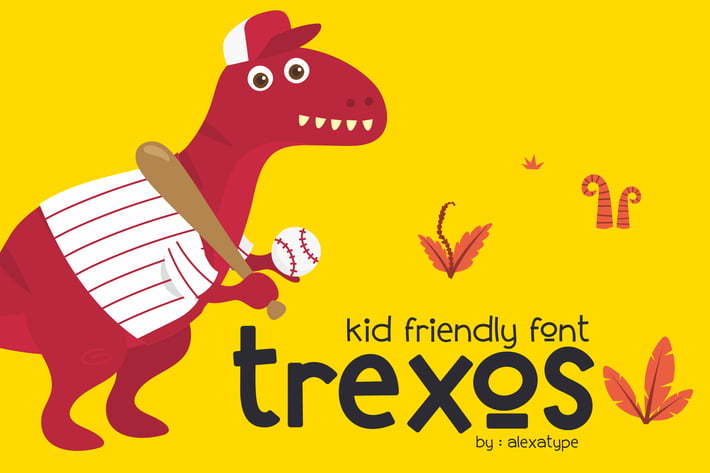
Trexos Font
Trexos is a friendly, rounded sans serif font inspired by the cheerful energy of a playful T-Rex. Designed for children’s books, educational materials, websites, and infographics, this font combines simplicity, warmth, and great readability. With its bouncy letterforms and smooth flow, Trexos makes sure your text is engaging, easy to read, and fun to look at—perfect for storytelling and young audiences.
Key Features
Soft & Friendly Letterforms – A warm, inviting sans serif designed for comfort and readability.
Perfect for Children’s Books & Learning Materials – Optimized for body text, captions, and educational designs.
Two Versatile Weights – Light and bold options for better design flexibility.
Great Readability for Print & Digital – Works well in storybooks, school materials, and kid-friendly websites.
Trexos is perfect for children’s book authors, educators, and designers looking for a soft, readable, and engaging typeface. Its rounded, bouncy letterforms make storytelling and learning materials feel approachable and inviting. Whether used for infographics, friendly branding, or digital reading apps, Trexos ensures a smooth, enjoyable reading experience.